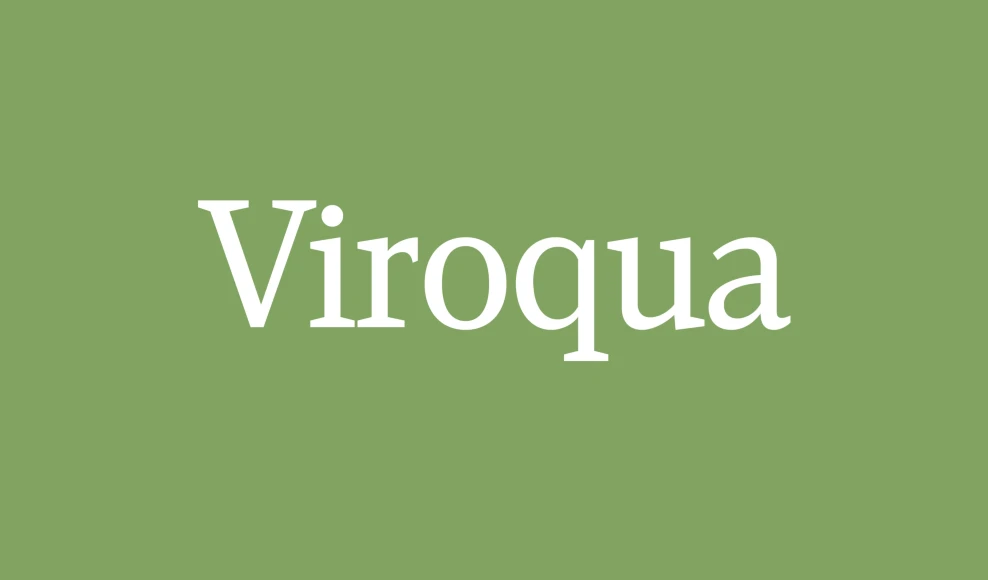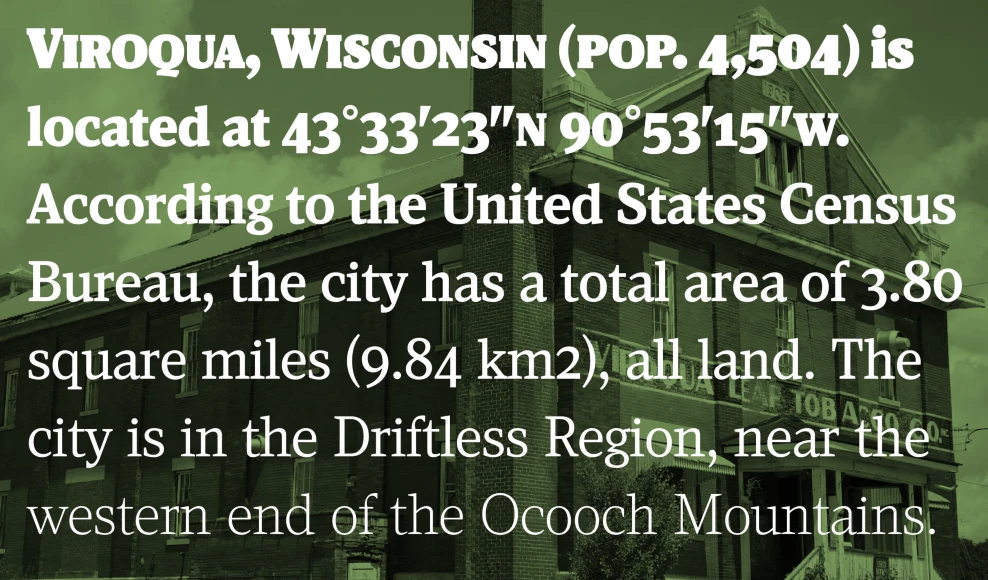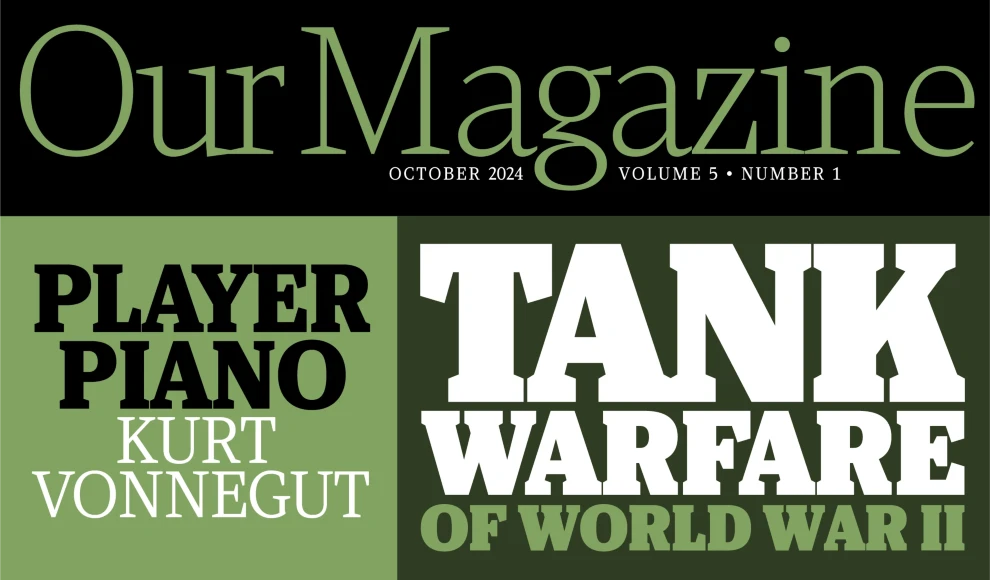
Viroqua
Viroqua is a redesign of Kandal (1994), one of my first typefaces, after 30 years more practice at type design. It’s a hybrid, combining old style details with modern proportions. It has fairly low contrast, with wedge-shaped slab serifs. Viroqua is very comfortable to read in text, and the boldest weights provide a lot of impact at display sizes. Viroqua features small caps, old style and lining figures (both proportional and tabular), superscript and subscript figures, fractions, and dingbats.